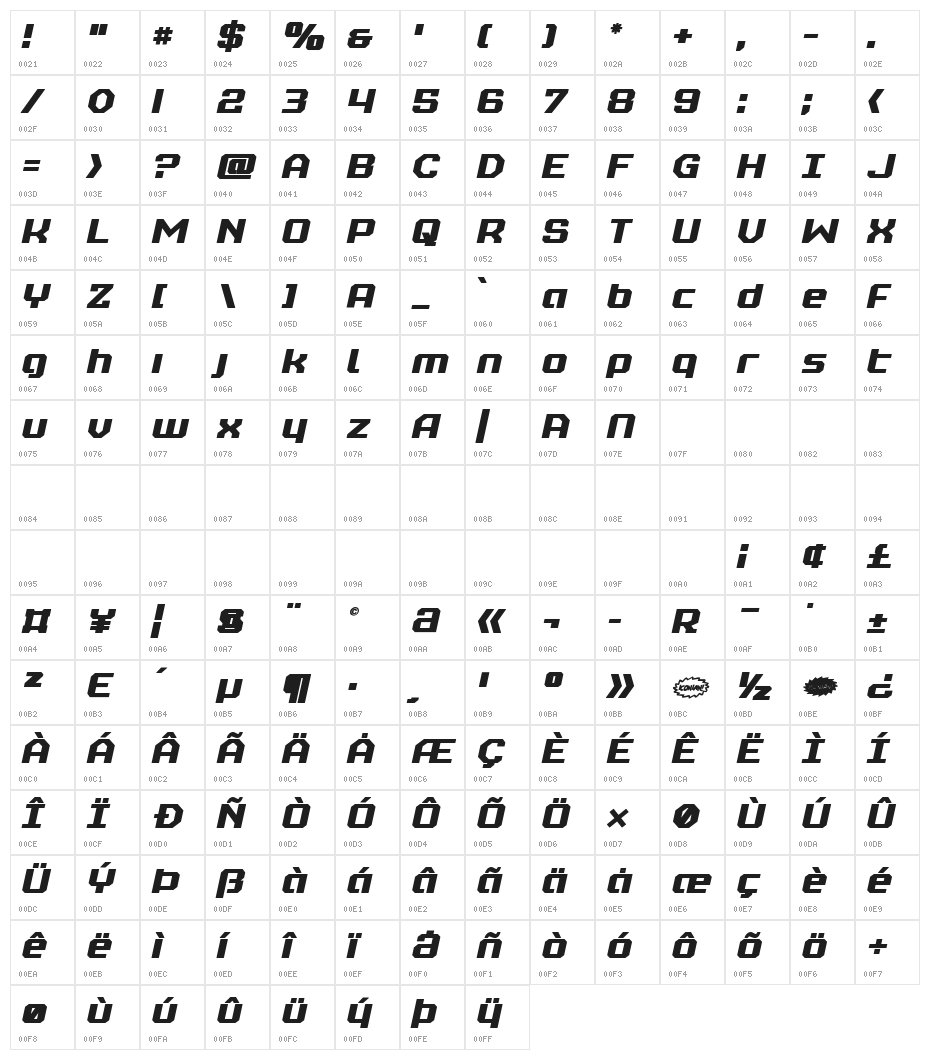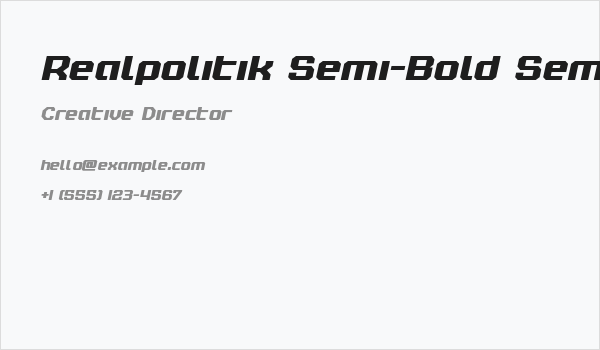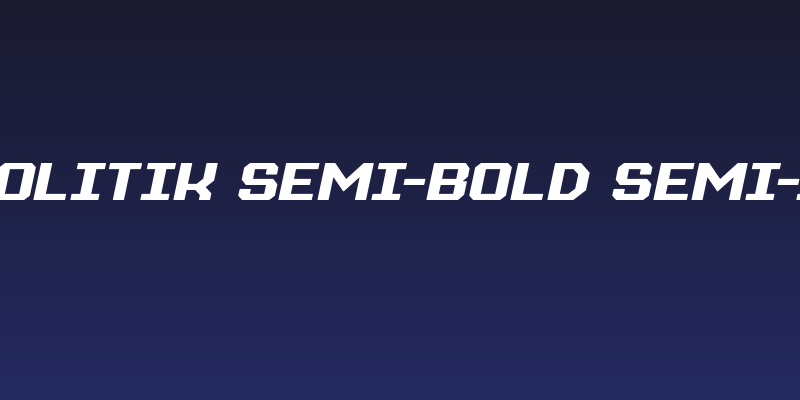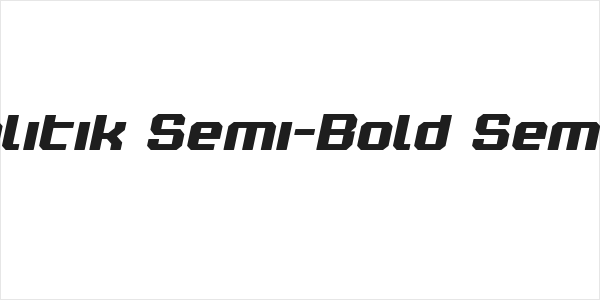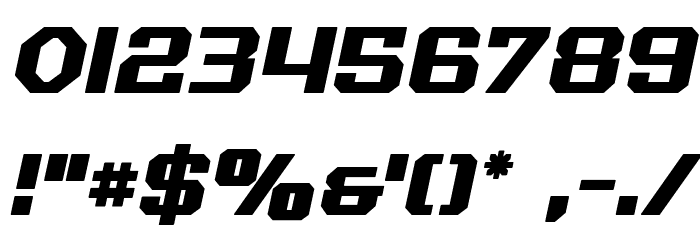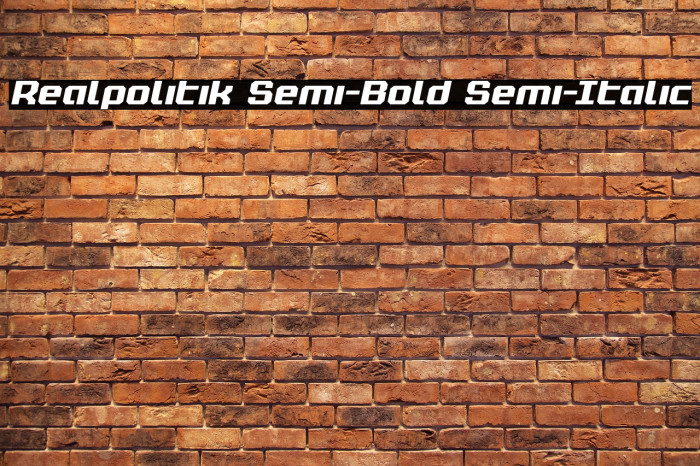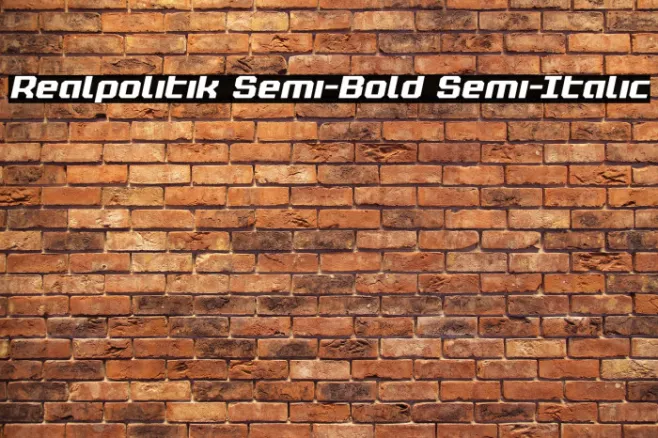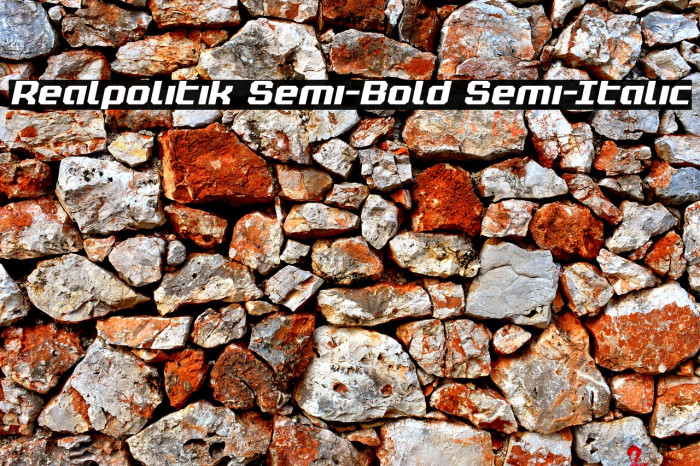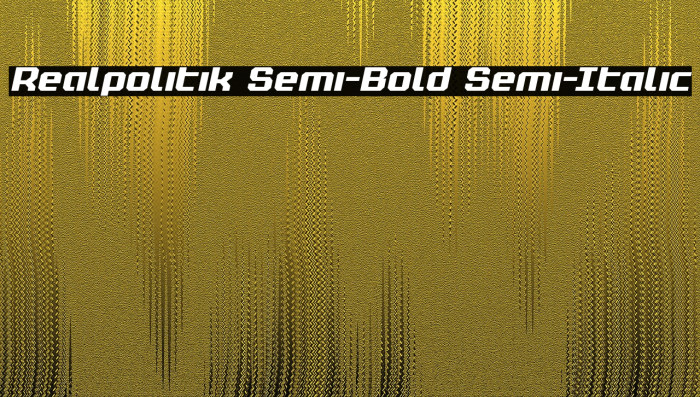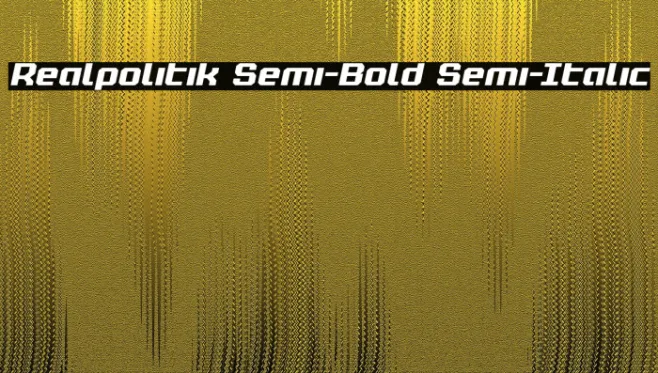
Realpolitik Semi-Bold Semi-Italic Font
Realpolitik Semi-Bold Semi-Italic Description
This font features a bold and semi-italic style, characterized by its strong geometric shapes and angular lines. The uppercase and lowercase letters maintain a consistent slant, giving a dynamic and forward-moving appearance. The numerals are equally robust, with a uniform thickness that complements the letterforms. Special characters are designed with the same angular precision, ensuring a cohesive look across all glyphs. The overall design is modern and assertive, making it suitable for impactful visual statements.